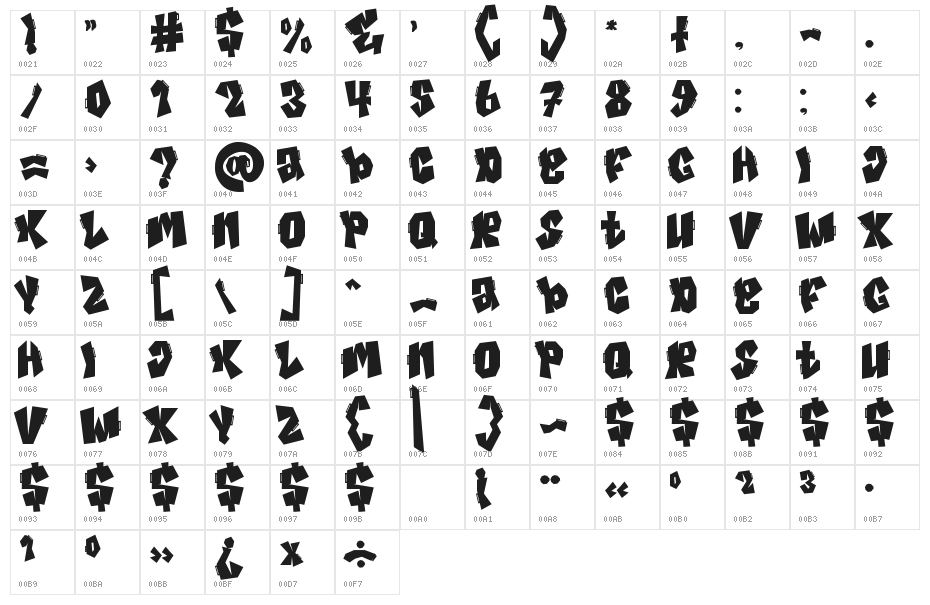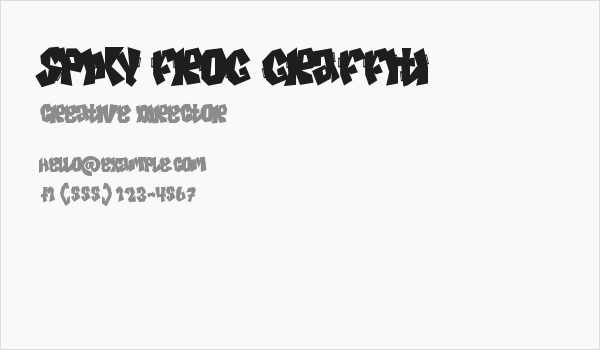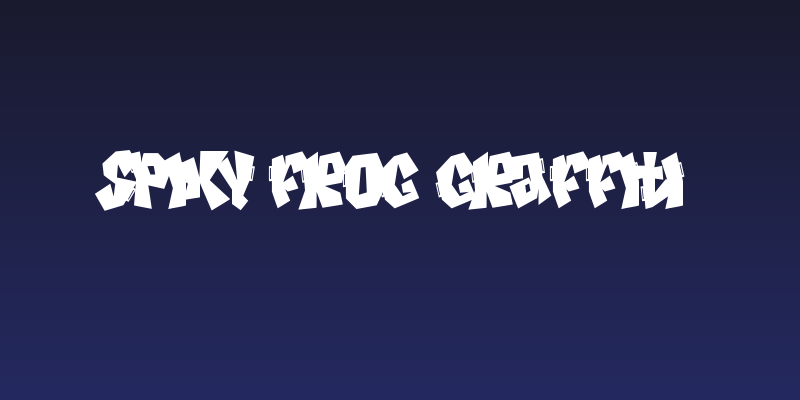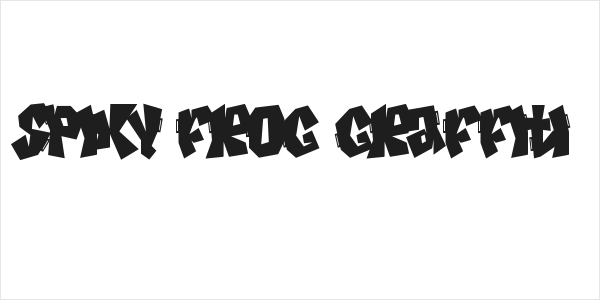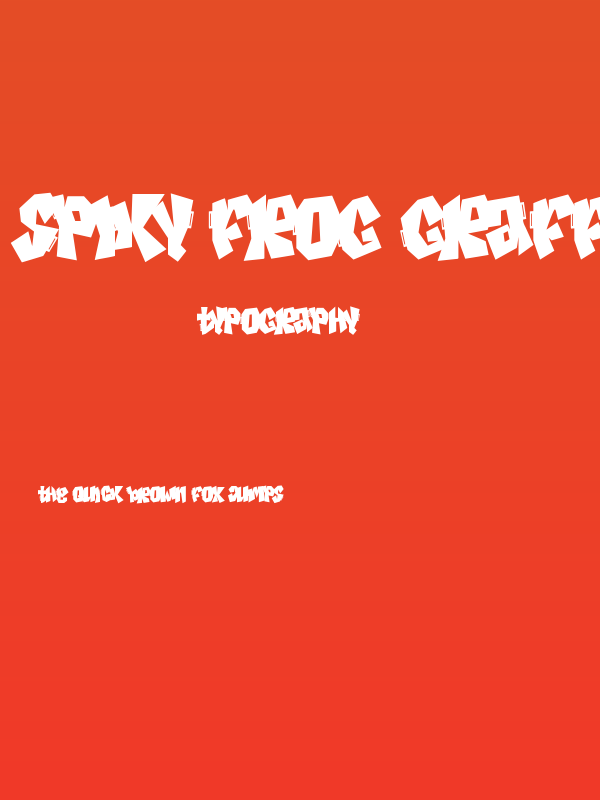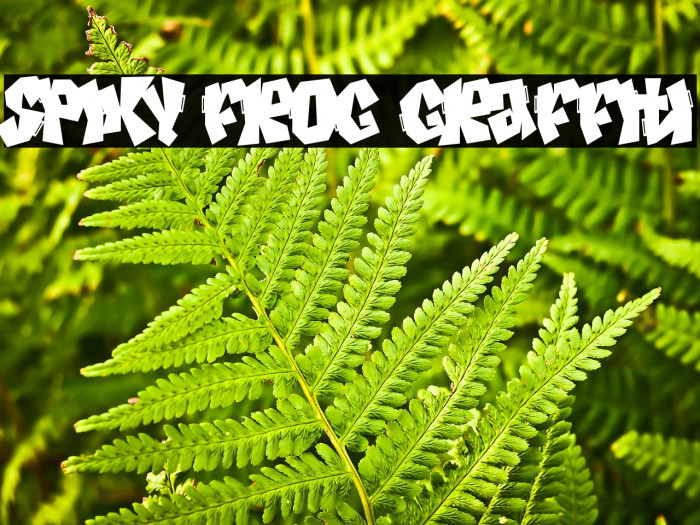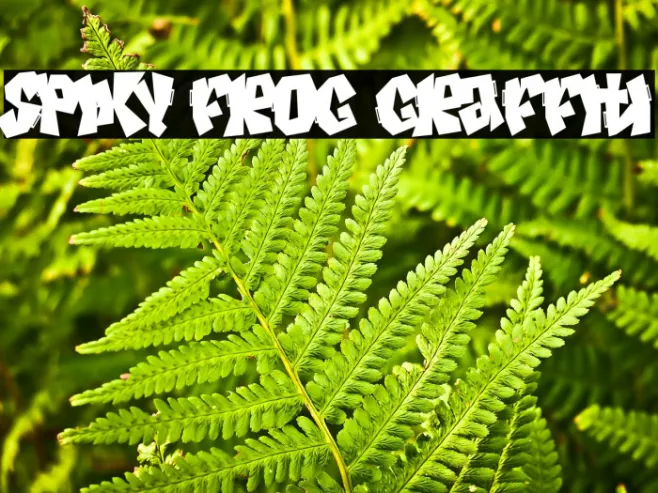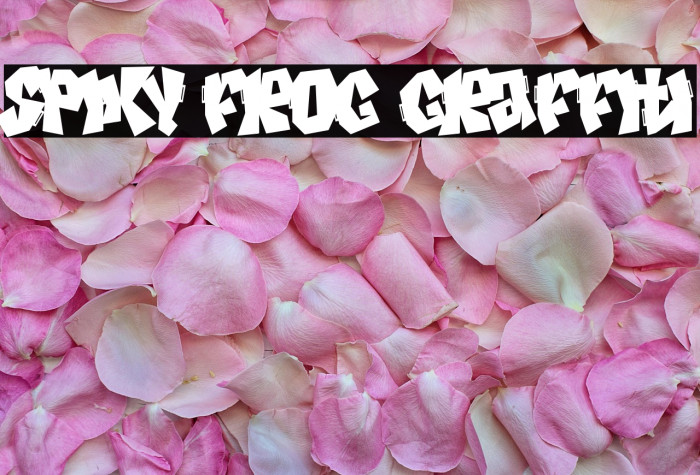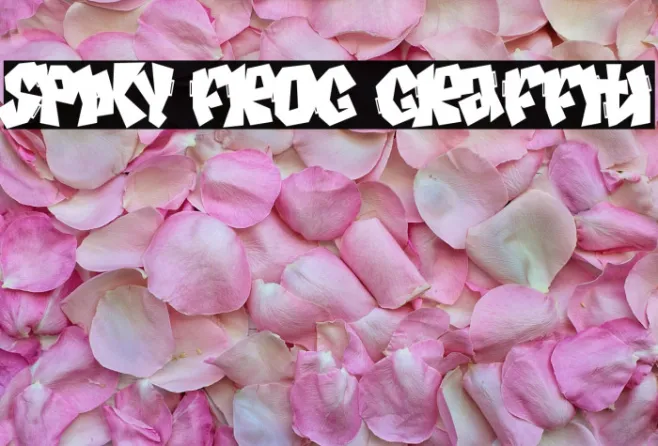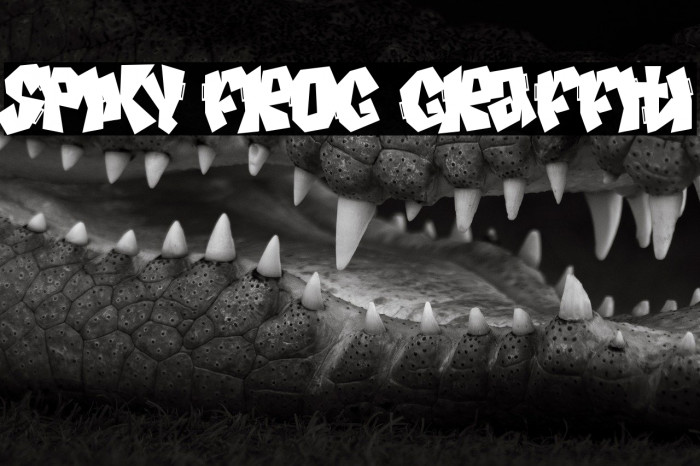
Spiky Frog Graffiti Font
Spiky Frog Graffiti Description
This font features a bold, edgy graffiti style with sharp, angular shapes that give it a dynamic and rebellious feel. The characters are heavily stylized, with exaggerated angles and a sense of movement, reminiscent of street art. The uppercase and lowercase letters maintain a consistent aesthetic, with a strong emphasis on geometric forms. Numbers and special characters follow the same design principles, ensuring a cohesive look across all elements. The font's unique style makes it stand out, ideal for projects that require a bold statement.
| Use Case | Logos, Headlines, Posters |
| Proposed Projects | Perfect for urban-themed designs, streetwear branding, music album covers, and event posters. |